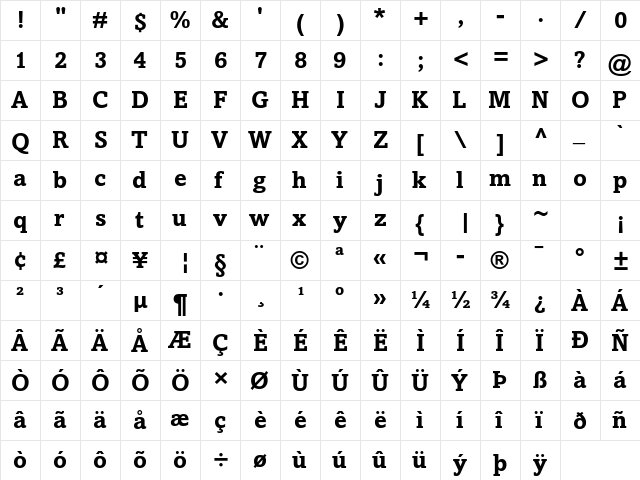
Amasis eText Bold
| Foundry | Monotype Imaging Inc. |
| Designer | Ron Carpenter |
Design Context for Amasis eText Typeface
Amasis eText offers clean, dependable letterforms without strong stylistic allegiance, making it a practical choice for designers who need flexibility. The heavy weight commands attention and anchors typographic hierarchies.